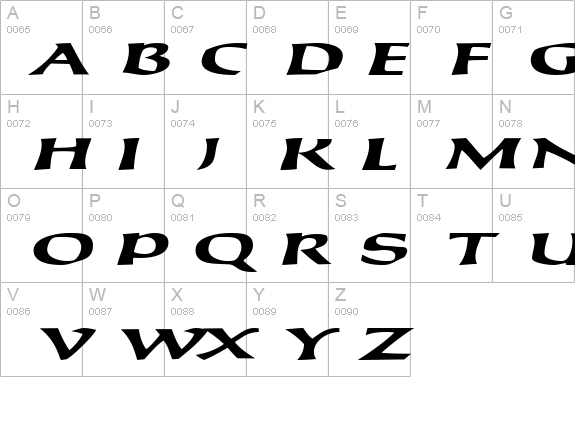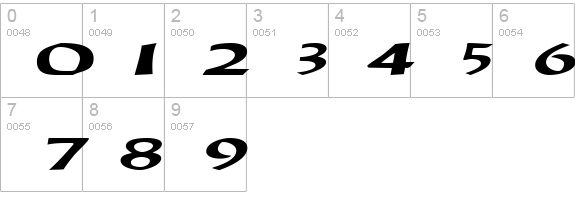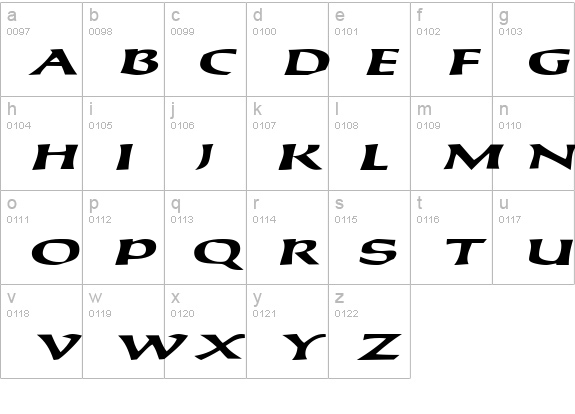
CayaugaSCapsSSK BoldItalic Font Details
CayaugaSCapsSSK BoldItalic font is a bold and stylish typeface that exudes sophistication and elegance. Its unique design features sharp edges and slanted italics, making it perfect for adding a touch of modern flair to any project. This font is ideal for creating eye-catching headlines, logos, and branding materials. What sets CayaugaSCapsSSK BoldItalic apart is that it is available for free download at FontsMarket.com. This means that you can easily access this premium font without having to spend a dime. Whether you're a designer looking to elevate your work or a business owner in need of a standout font for your marketing materials, CayaugaSCapsSSK BoldItalic is the perfect choice. Download it today and take your designs to the next level!